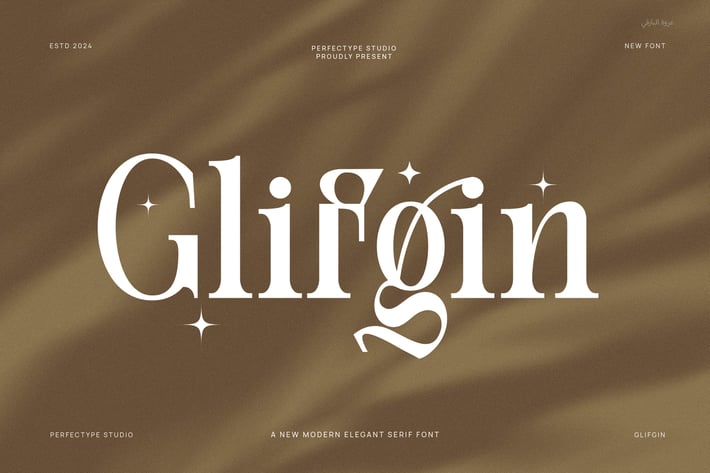
Glifgin Unique Elegant Serif Font
Glifgin is a unique and elegant serif font designed to bring sophistication and style to your projects. First, it features sharp serifs combined with smooth, flowing lines, which create a balanced and refined look. Because of this, Glifgin works perfectly for designs that require both class and creativity.
Moreover, Glifgin is highly versatile. You can use it for logos, branding, invitations, magazines, and websites. In addition, the clear and distinct letterforms ensure readability across all sizes. So, whether in large headlines or smaller body text, this font keeps your message sharp and polished.
Furthermore, Glifgin’s design stands out because of its unique details. The subtle curves and elegant strokes add personality without overwhelming the text. This means it is ideal for luxury brands, fashion, editorial work, and wedding materials. Besides, the font pairs beautifully with modern sans serif fonts, offering great flexibility in combining styles.
Another advantage is Glifgin’s smooth ligatures, which create a natural flow and enhance visual interest. As a result, your text feels alive and engaging. In fact, these features help your design look professional, fresh, and memorable.
To sum up, Glifgin offers:
- Unique and elegant serif style
- Sharp serifs with smooth, flowing lines
- Clear and readable letters at all sizes
- Versatile for branding, print, and digital use
- Perfect for fashion, luxury, editorial, weddings
- Great pairing with sans serif fonts
- Smooth ligatures for natural flow and style
Overall, Glifgin delivers a refined and stylish serif font that adds charm and clarity. This way, your designs will stand out with elegance and personality.